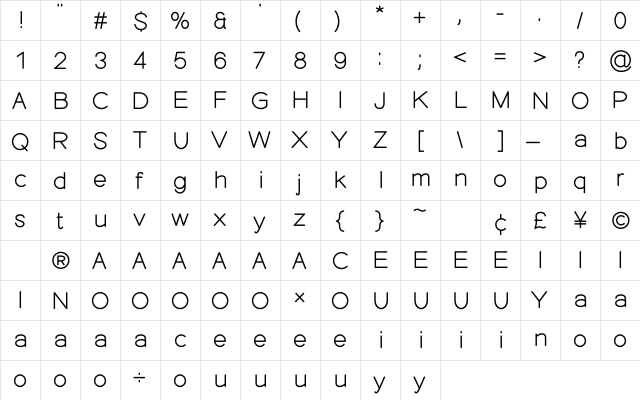
ST Hanekam Rounded
| Foundry | Idelaborate |
| Designer | Sidiq Kamal Nurmawan |
Design Context for ST Hanekam Typeface
ST Hanekam softens its letterforms with rounded terminals, giving it an approachable, friendly quality that works well in consumer-facing and digital contexts.
A natural fit for tech startups, health and wellness brands, children's products, and friendly consumer apps.
Font Pairing: Pairs well with a rounded or humanist sans for body copy, maintaining the friendly tone without relying on ST Hanekam to carry extended reading.
Pro Tip: Pair ST Hanekam with a geometric sans for a balanced system — the rounded softness works as a warm counterpoint to harder-edged companions.